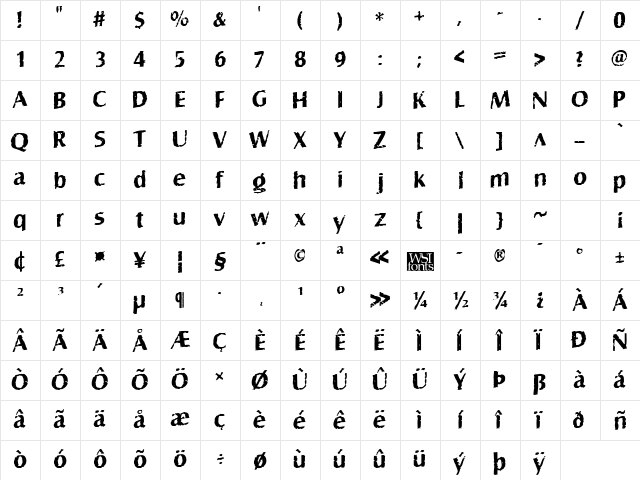
GrelbbTilted Regular
Design Context for GrelbbTilted Typeface
GrelbbTilted takes a measured approach to typography — its balanced proportions and neutral character make it a reliable workhorse for both digital and print work.